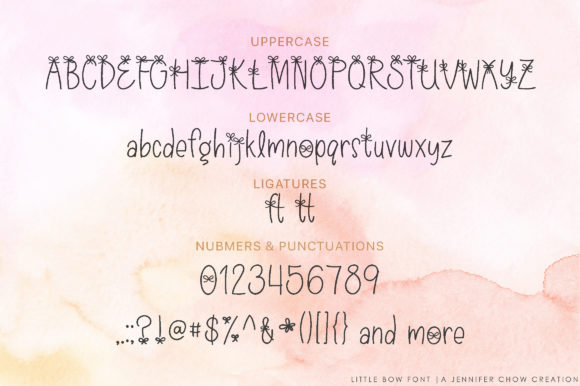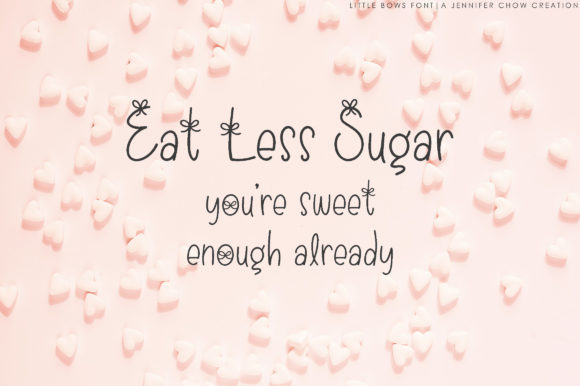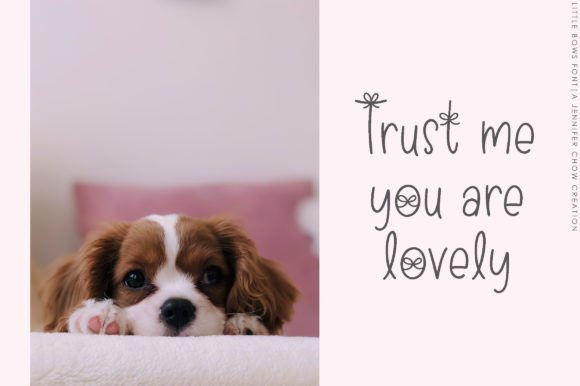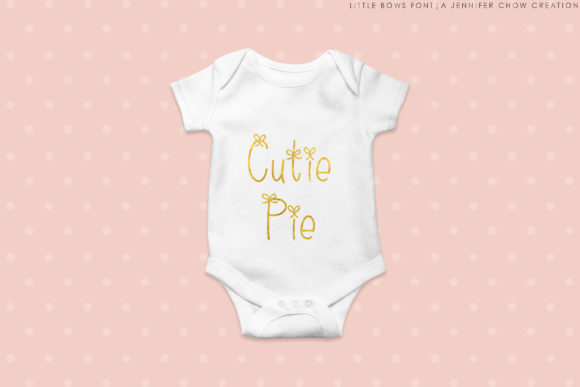
Introduction to Little Bows Font
Remember that moment when you’re working on a creative project, and you just can’t seem to find the perfect font to match your vision? The frustration is real, but what if I told you there’s a font that can turn that frown upside down? Meet the adorable Little Bows Font, a free download that’s sure to become a valuable addition to your design resource library.
This charming sans serif font is a dream come true for designers and crafty enthusiasts alike. Its dainty and romantic style has the power to elevate any creation, making it a must-have for any creative project. With its high quality design and transparent background, you can rest assured that your designs will look stunning and professional.
Key Features of Little Bows Font
- High-quality design resource ideal for creative projects, offering a unique and playful touch.
- Features a transparent background, allowing for seamless integration into any design, from digital to print materials.
- Includes a range of bow designs, from simple to intricate, giving users the flexibility to choose the perfect bow for their project.
- Available in a range of sizes, from small to large, making it suitable for various design applications, including invitations, labels, and more.
- Perfect for designers, crafters, and DIY enthusiasts looking for a unique and creative element to elevate their projects.
Honest Review: Little Bows Font
I recently came across the Little Bows Font, a beautiful design resource that’s perfect for adding a touch of whimsy to your creative project. This font is a high-quality addition to any designer’s toolkit, offering a range of charming bows and embellishments.
- ✨ The font is incredibly easy to use, even for those without extensive design experience.
- ✨ The transparent background makes it easy to layer over other design elements.
- ⚠️ The font is limited to a single style, which may not be suitable for complex designs.
- ⚠️ Some users may find the font’s playfulness overwhelming for certain projects.
Overall, I’m thoroughly impressed with the Little Bows Font. It’s a fantastic addition to any designer’s toolkit, and its free download makes it an excellent resource for designers on a budget. While it may have some limitations, the font’s ease of use and high-quality design make it a valuable asset for any creative project.
The Little Bows Font is suitable for various design projects, including:
- Wedding invitations and decorations
- Baby shower invitations and decorations
- Gift tags and wrapping paper
- Party decorations and invitations
For the best results, use the Little Bows Font with a transparent background to create a seamless and elegant design. You can also combine this font with other design elements, such as graphics and images, to add more visual interest to your project.